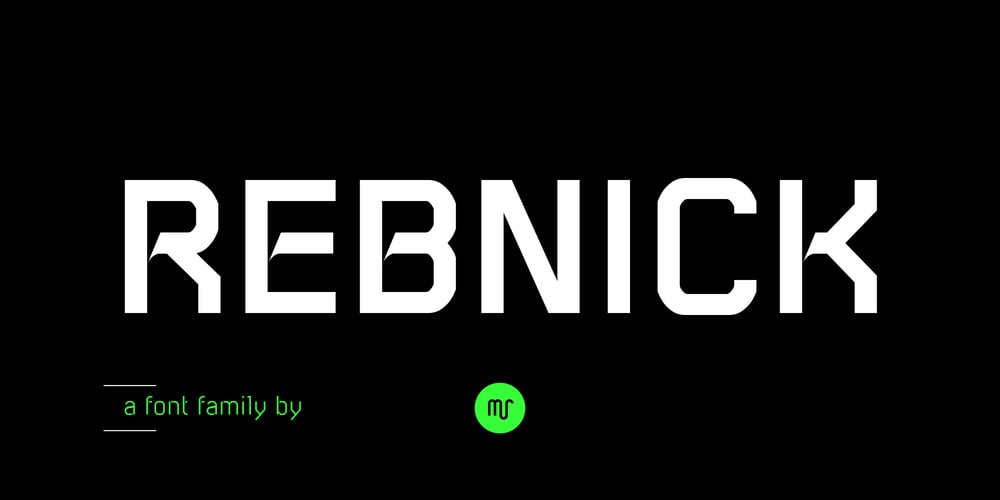
Rebnick Font Family was designed by Michael Reichen and published by Mr Studio. Rebnick contains 4 styles and family package options. Rebnick is a sans serif typeface where in the early design process, the adjacent stems and bars weren’t weld seamlessly and perfectly. You can actually find glitches which were carefully transformed into a custom language in it’s own and later became the coherent generic rule that keeps everything together. In display sizes, the ink traps give the font’s own character, while in small text sizes they create a good legibility and a well-balanced ratio between the black and white spaces.